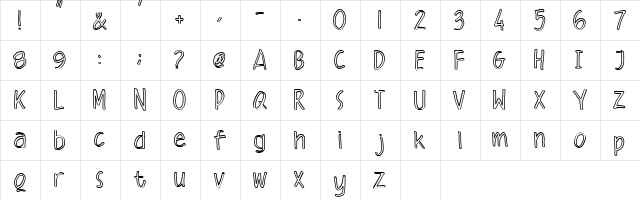
Malique Outline Regular
| Designer | Muhammad Ridha Agusni |
Design Context for Malique Outline Typeface
Malique Outline is built around its visual character rather than neutral utility — its distinctive forms are designed to make an impression at display sizes.
Font Pairing: Pair with a clean neutral sans-serif for body copy to let Malique Outline's character lead without overwhelming the composition.
Pro Tip: Treat Malique Outline as the centrepiece of your typographic hierarchy. One strong heading set in a decorative face can carry an entire layout.